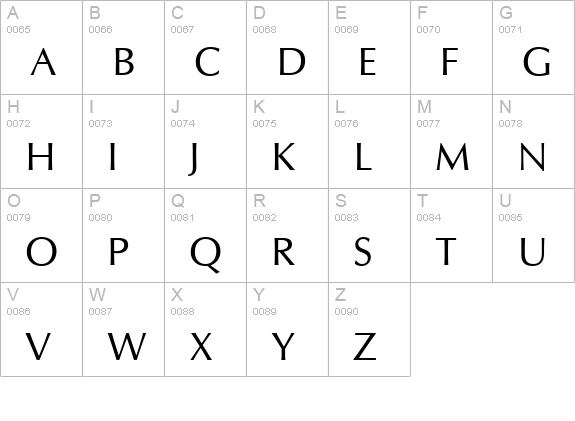
Introducing CG Omega, a versatile and modern font that is sure to make a statement in any design project. With its sleek lines and elegant curves, CG Omega exudes sophistication and style. This font is perfect for a wide range of applications, from branding to editorial design. The best part? CG Omega is completely free to download! You can get your hands on this stunning font at FontsMarket.com, where it is available for immediate download. Don't miss out on the opportunity to elevate your designs with the timeless elegance of CG Omega. Download it today and see the difference it can make in your projects.